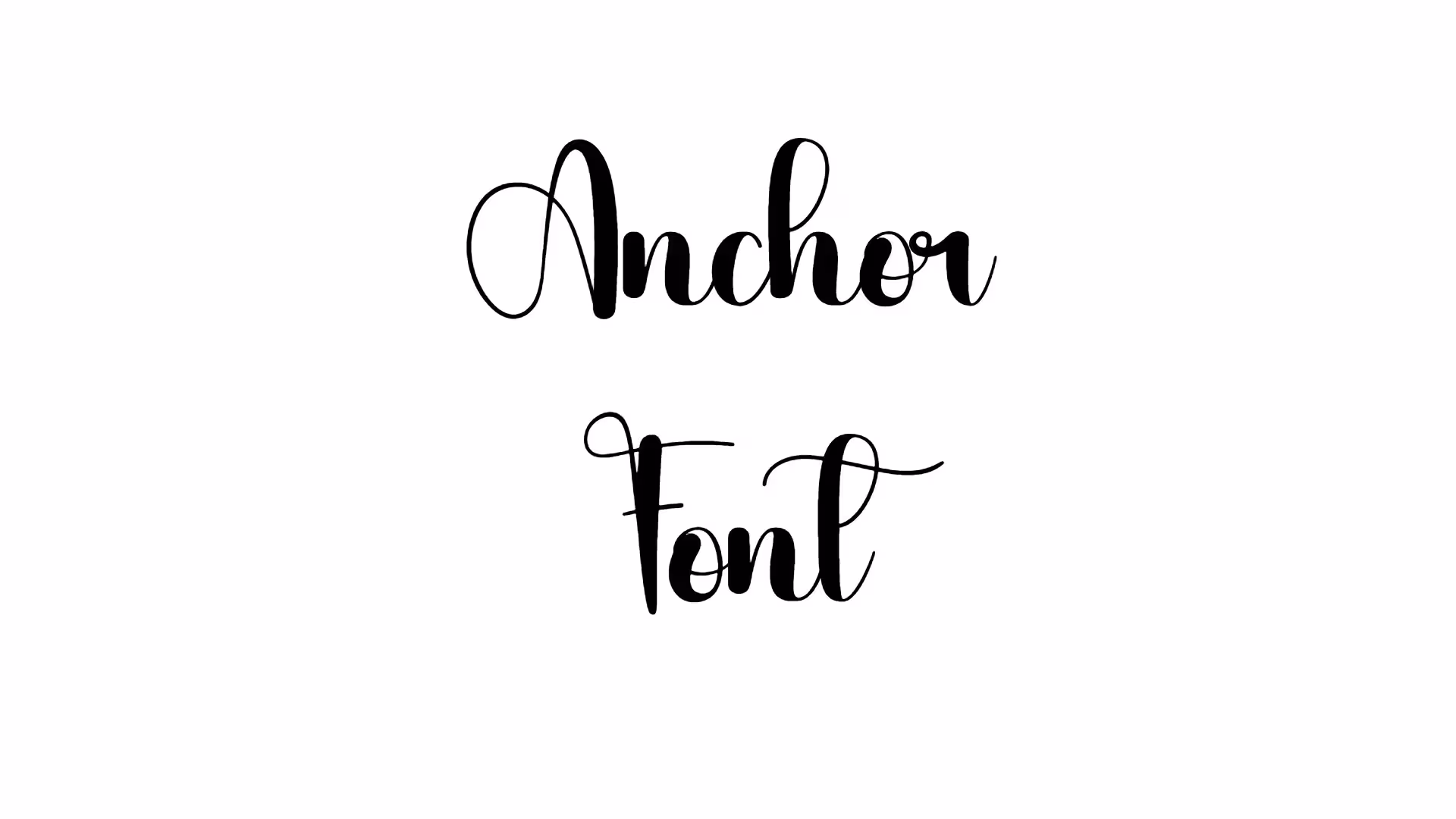
Anchor
Anchor is a calligraphy font. Its flowing, pen-made letters give names and short phrases a personal, polished look. You can download it for free and test it with your own words in the preview above.
With complete upper and lowercase letters and all ten digits, Anchor is ready for real wording, not just a single headline. Common punctuation such as &, !, ? and @ is included as well. It also has the accented letters you need for Spanish, French, Portuguese and Italian.
Anchor is a natural fit for wedding invitations, certificates and elegant quotes. Script fonts read best in short bursts, so keep it to names, titles and one-line quotes. Skip all caps: script capitals are drawn to start a word, not to fill one.
Yes. Anchor includes the accented letters needed for Spanish, French, Portuguese and Italian, so it works for more than just English.